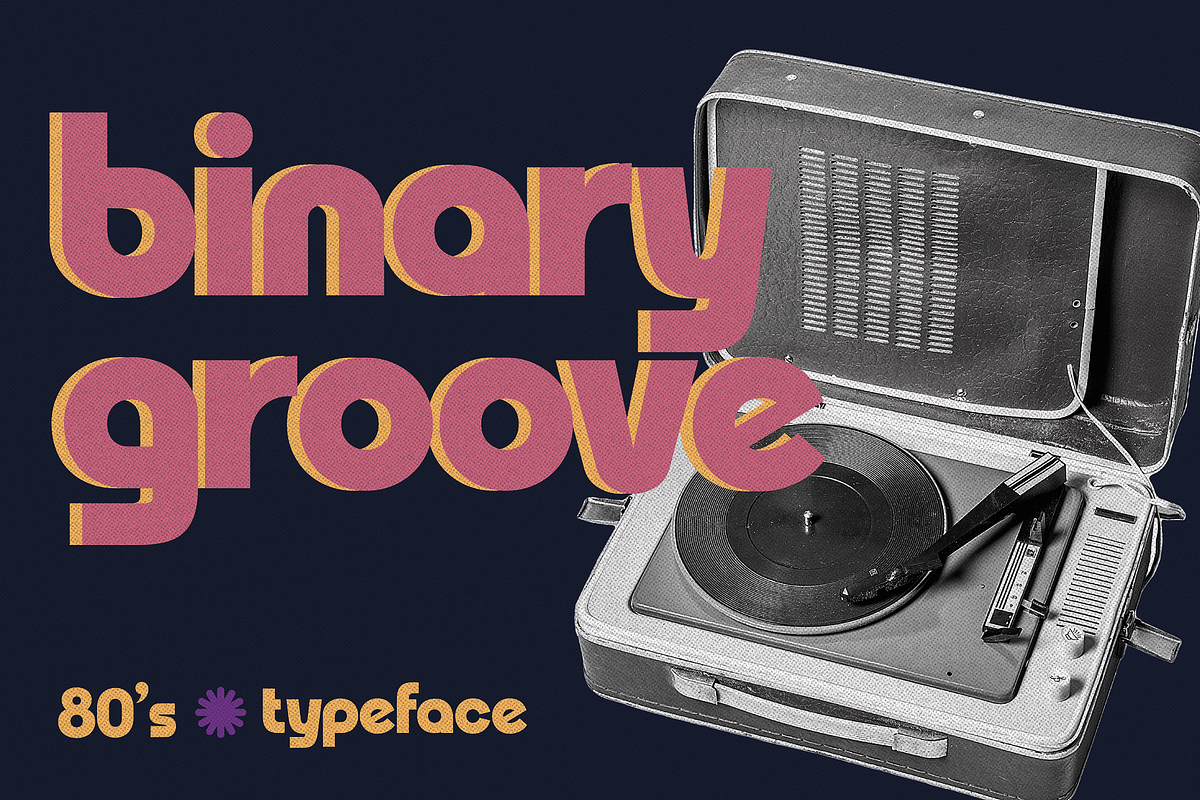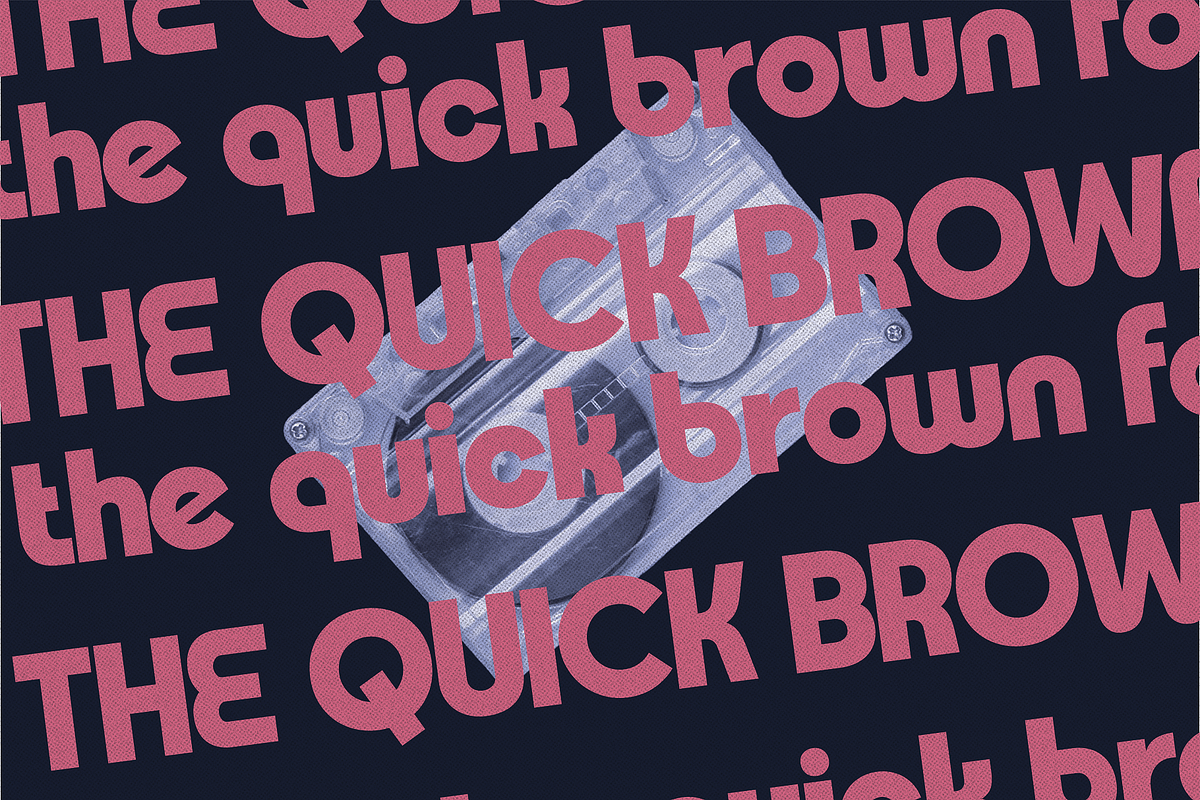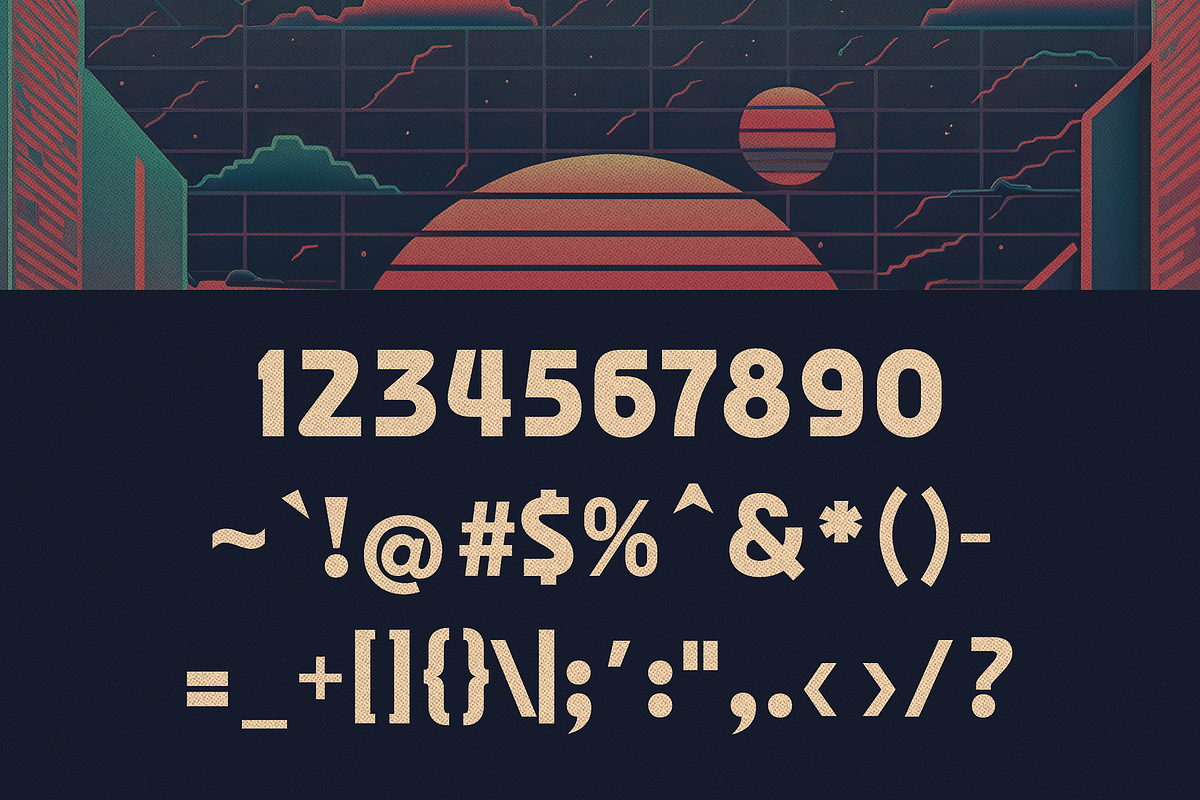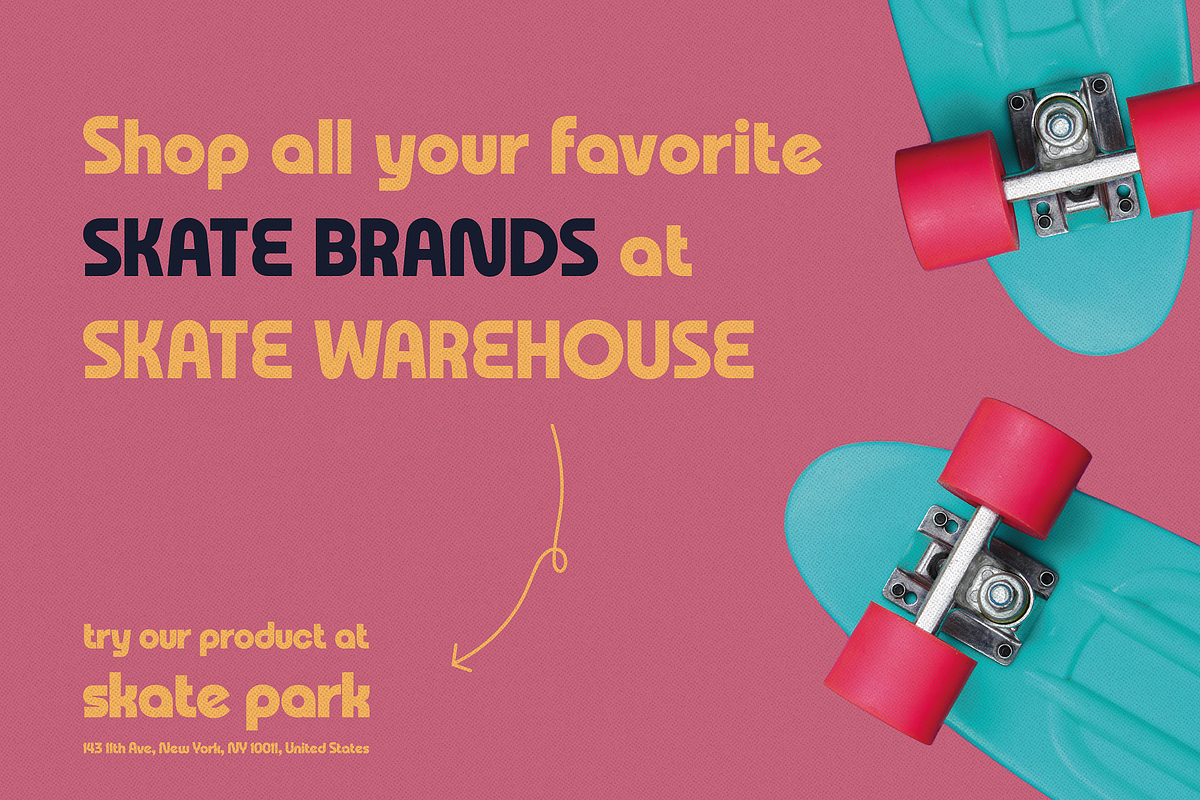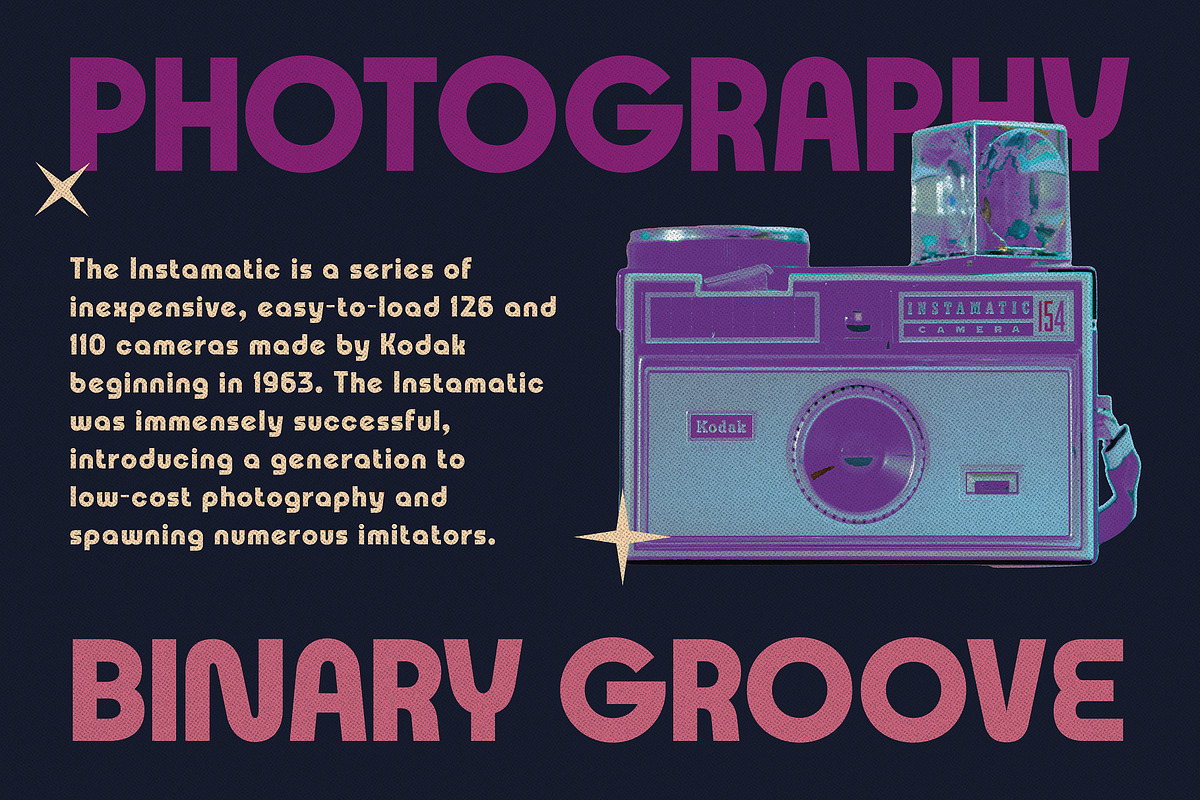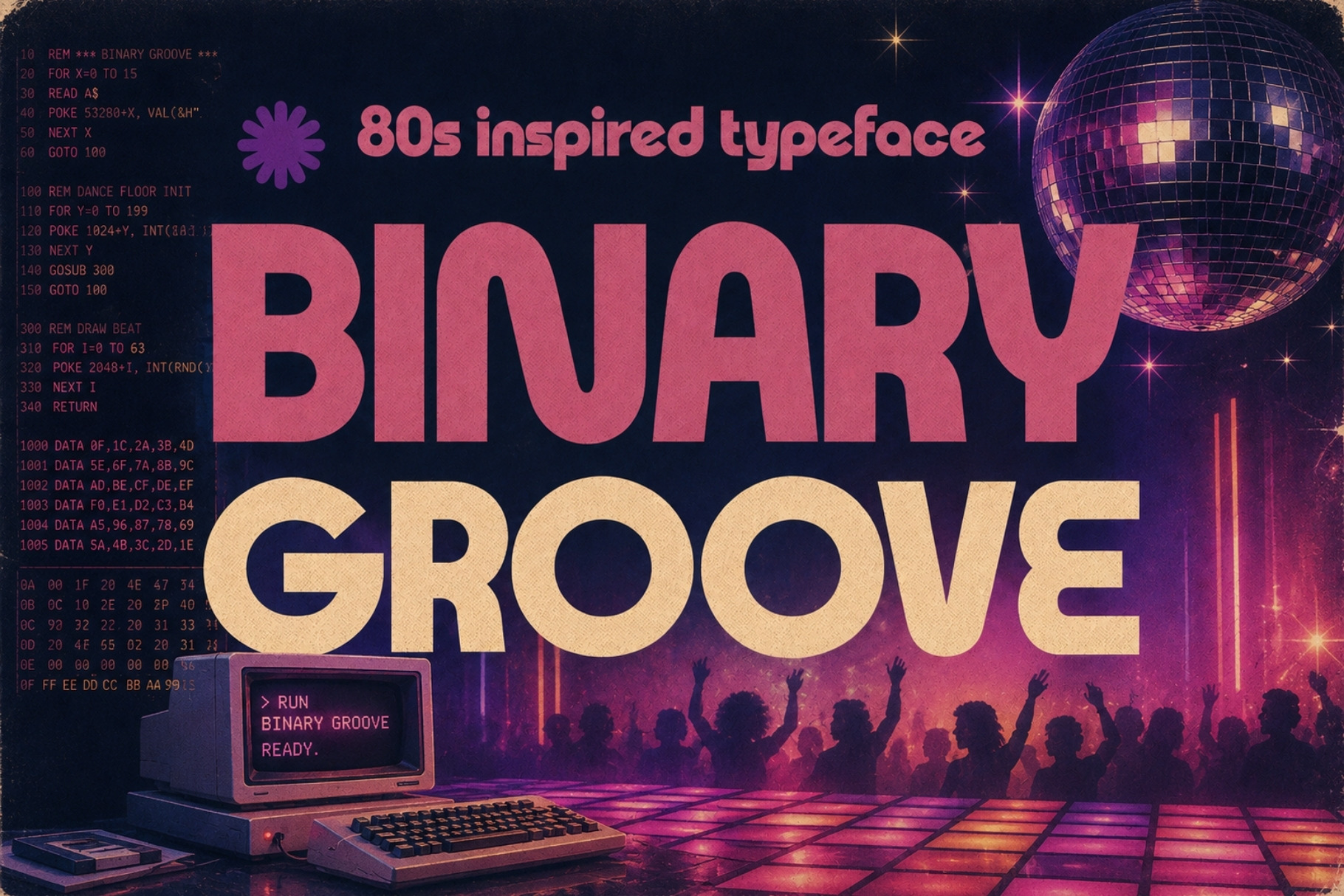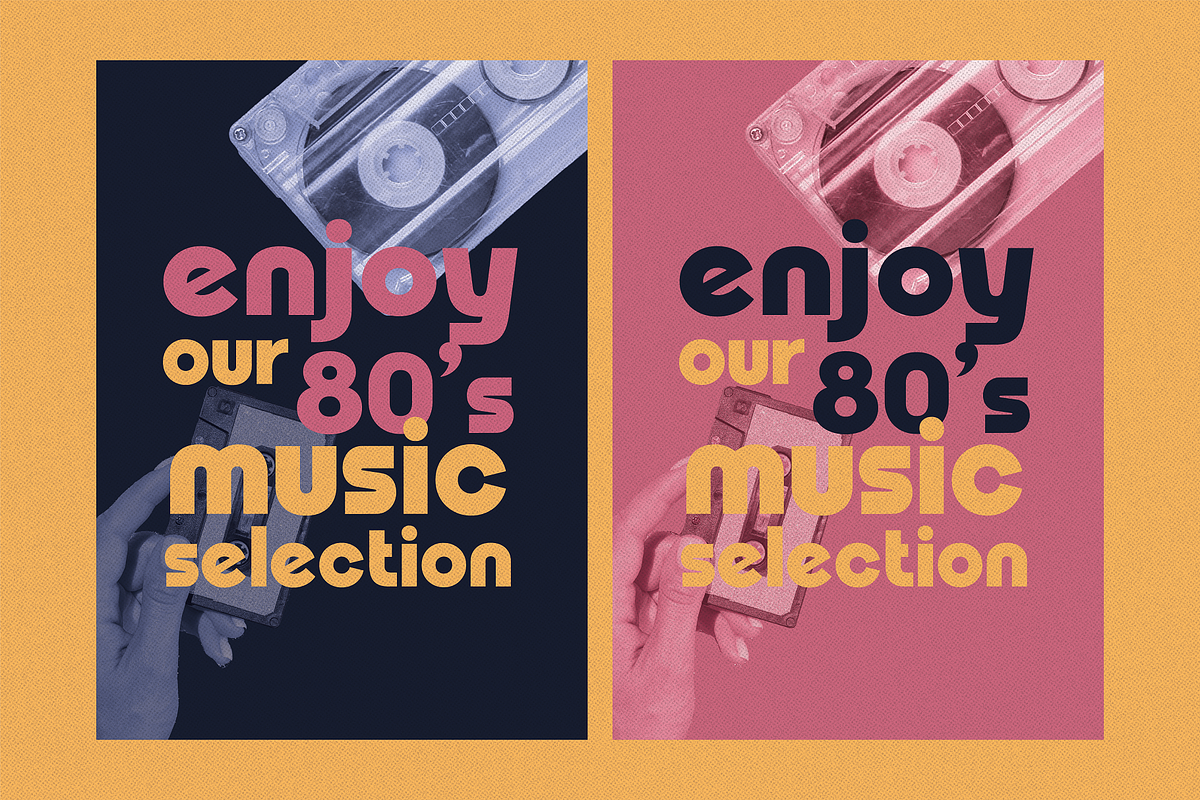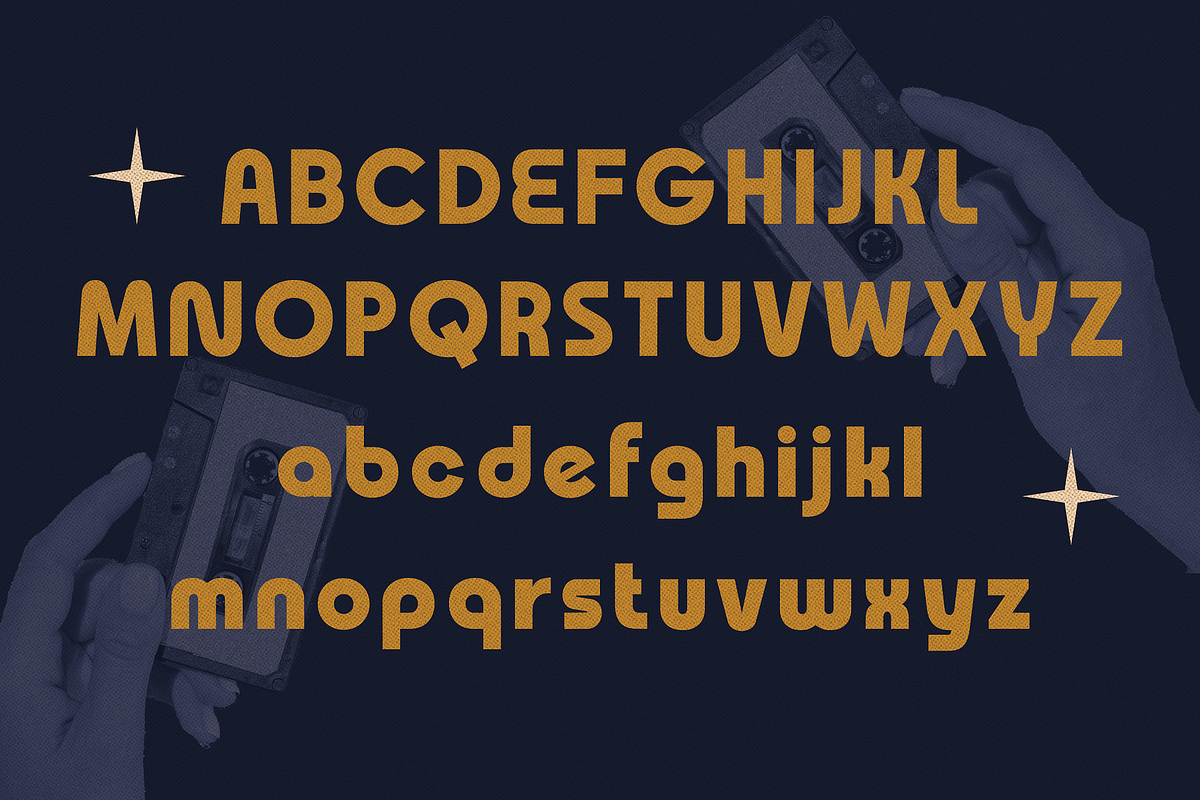
Binary Groove - 80s Inspired Font
Binary Groove is a bold and dynamic font that captures the essence of the 1980s retro-futuristic style. The geometric shapes and sharp edges of each letterform evoke a sense of technology and progress, while the rounded edges add a touch of playfulness.
The font features a sleek and modern design that is perfect for headlines, posters, packaging, and branding projects. With its unique style and dynamic energy, Binary Groove is a must-have for designers who want to add a touch of retro-futurism to their projects.